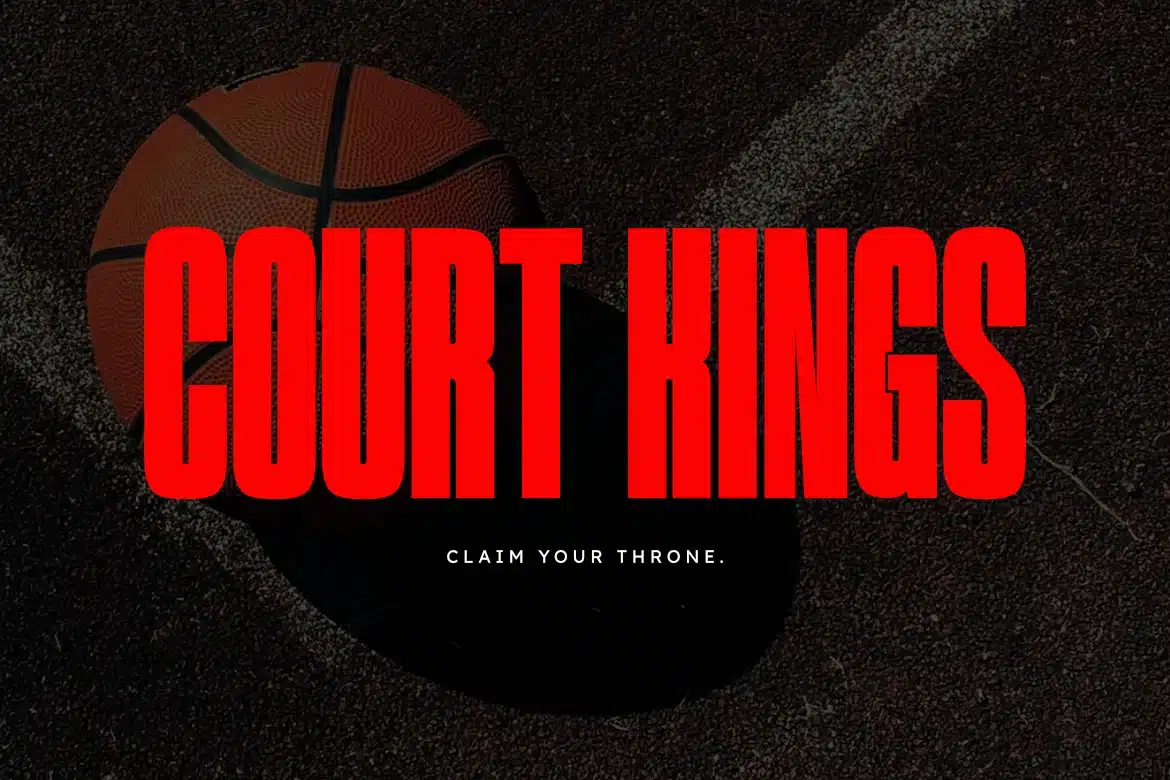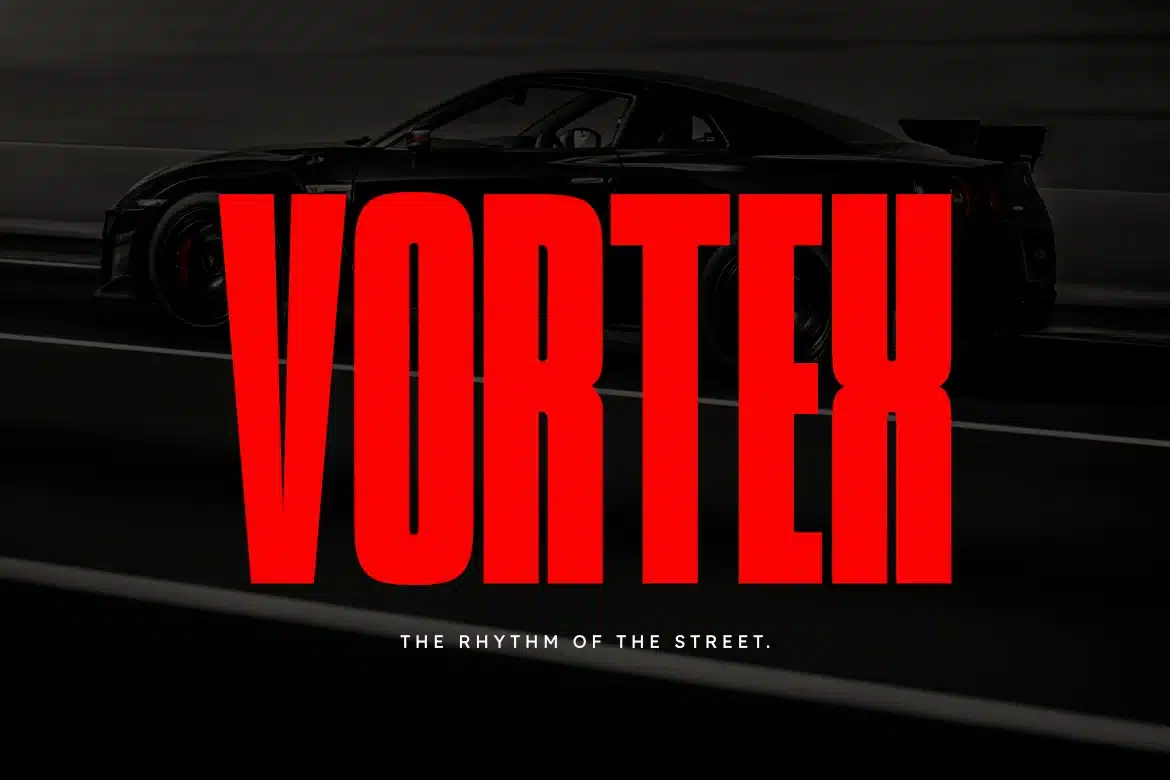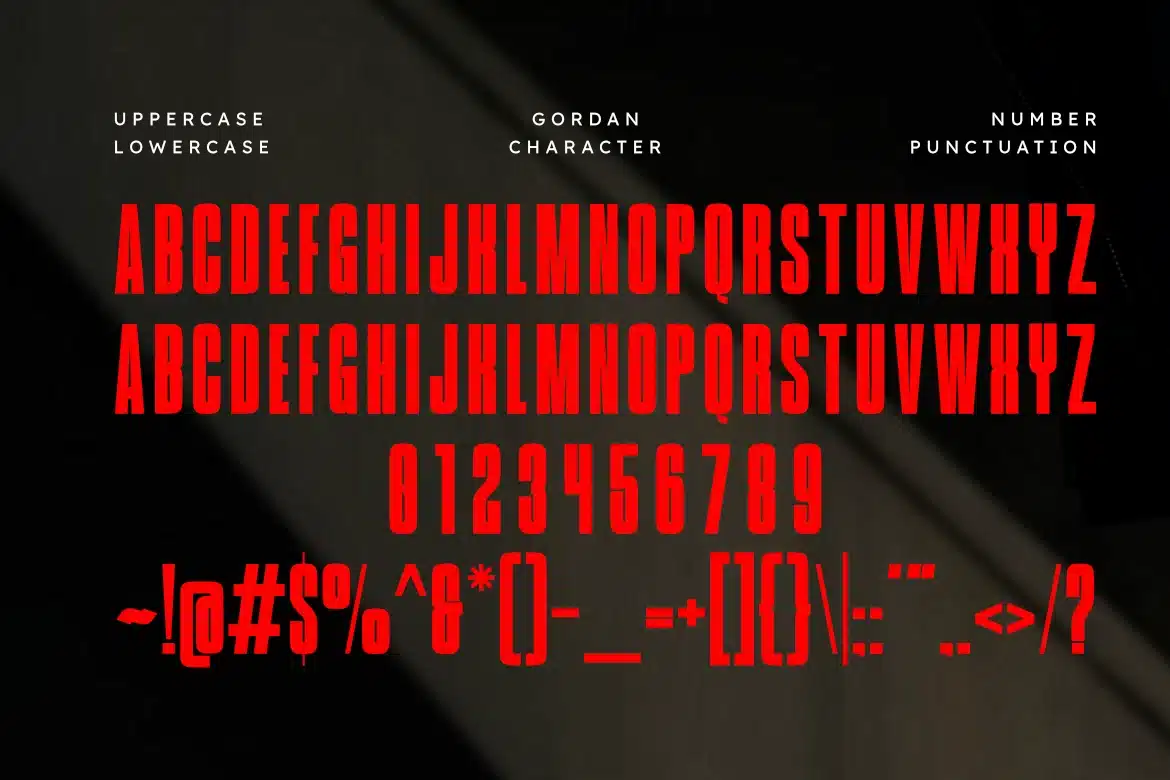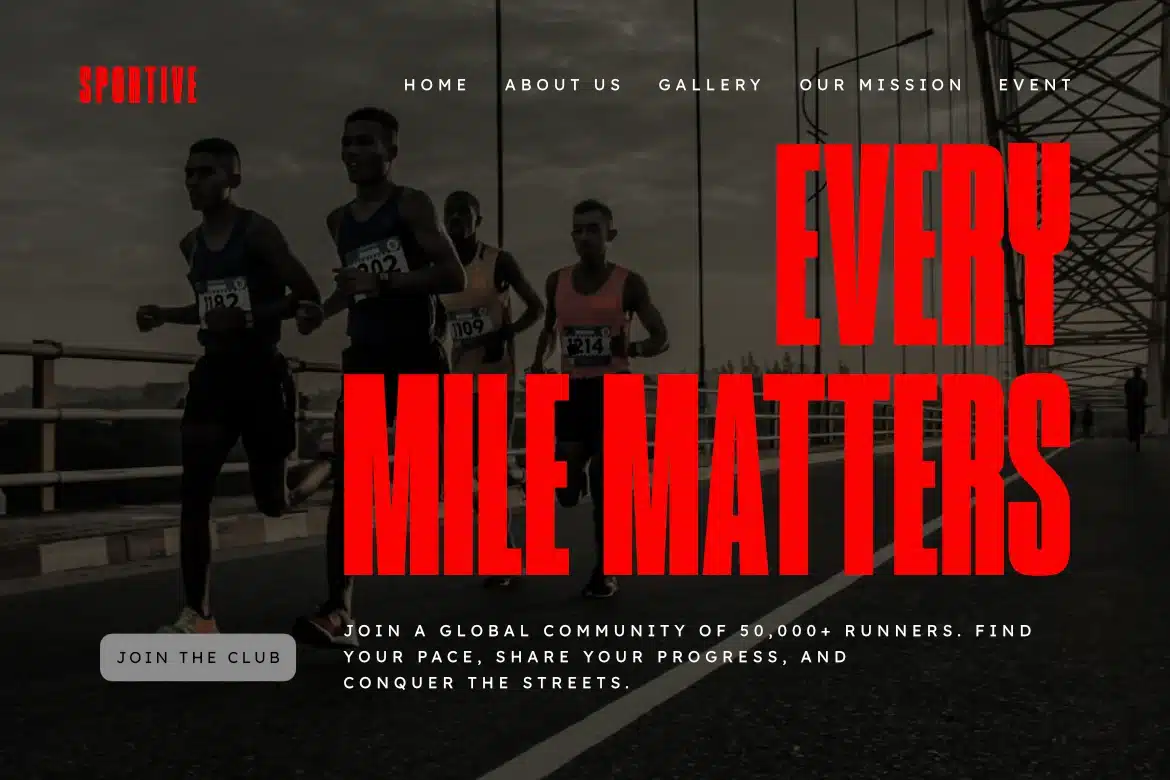
Gordan – Bold Condensed Sans Serif Font
Gordan is a sophisticated and powerful bold condensed sans serif font, thoughtfully designed to capture the essence of industrial strength and contemporary storytelling. With its tall, solid structure and clean vertical lines, Gordan offers a professional aesthetic that brings a touch of commanding authority to any creative project.
This font is the ideal choice for designers looking to add a professional yet high-impact touch to their work. Whether you are crafting a striking sports logo, a sleek automotive brand identity, or bold editorial layouts, Gordan provides a seamless blend of modern flair and timeless power.
Main Features:
- Bold Condensed Design: Optimized for a high-impact, space-saving, and professional look.
- Refined Industrial Letterforms: Meticulously crafted for superior legibility and strength.
- Commanding Presence: Perfect for headlines, posters, and large-scale digital displays.
- Professional Aesthetic: High-end finish for modern corporate and sports branding.
Best Used For:
Sports branding, automotive logos, cinematic movie posters, gym and fitness marketing, industrial packaging, and impactful web headers.